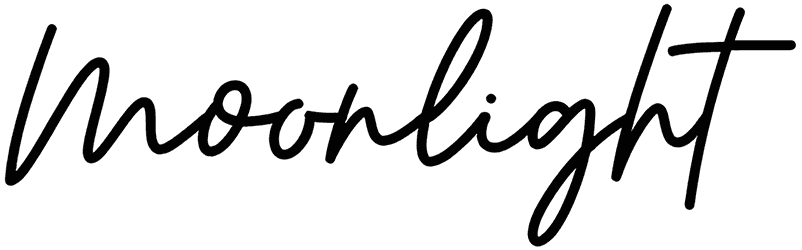
Moonlight Font
Moonlight font can be placed in a group of script fonts. With the help of the interlinked lines of this hand-letter font, it is possible to create both a sense of uniqueness and a romantic atmosphere in various texts.
For example, you can use this handwritten font in designing the cover of wedding and fashion magazines, t-shirts, and many luxury brands, even though it is a little illegible.